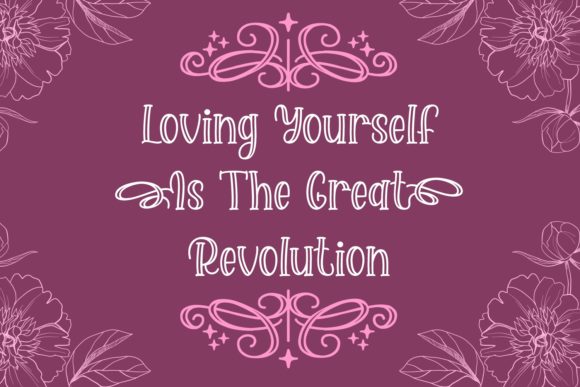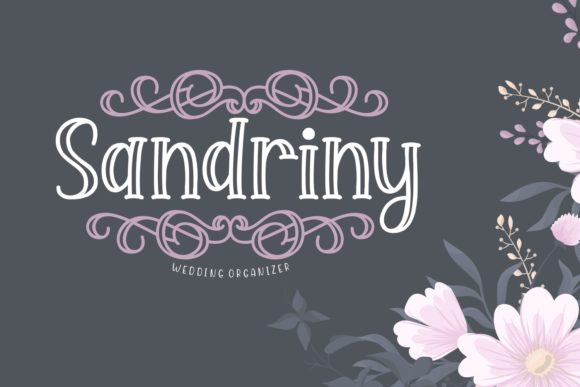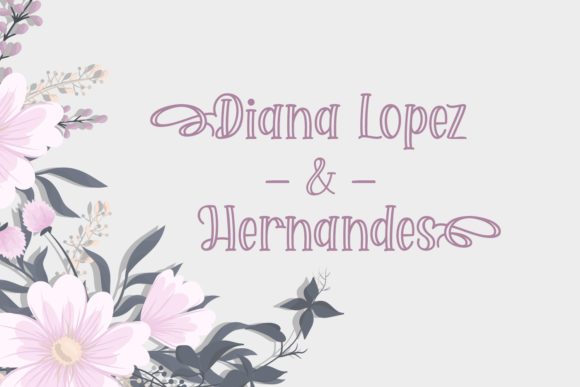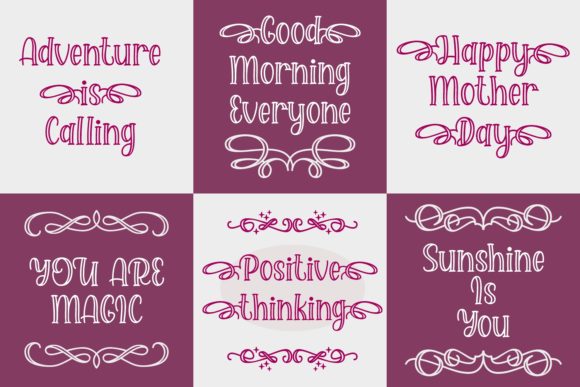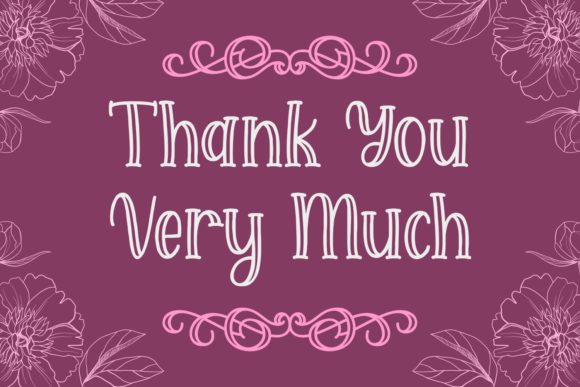
Asteriska Font: Elevate Your Designs with Elegance and Charm
In the world of typography, few fonts manage to strike a balance between charm and elegance as effortlessly as Asteriska Font. This beautiful, handwritten font has captured the hearts of designers and crafters alike, and for good reason. With its stunning appearance and versatile uses, Asteriska Font is the perfect addition to any design project that requires a touch of sophistication and whimsy.
The Characteristics of Asteriska Font
Asteriska Font is a true gem in the realm of typography. Its most notable features include a varying baseline, which gives it a delightfully organic and human feel. The smooth lines and gorgeous glyphs add to its charm, making it a font that exudes elegance and refinement. But what truly sets Asteriska apart is its stunning alternates, which allow designers to add a unique touch to their creations.
Practical Applications of Asteriska Font
So, where can you use Asteriska Font to elevate your designs? The possibilities are endless! Here are a few ideas to get you started:
- Wedding Invitations: Add a touch of romance and whimsy to your wedding invitations with Asteriska Font. Its elegant and charming appearance makes it perfect for formal and informal wedding stationery.
- Thank You Cards: Express your gratitude in style with Asteriska Font. Its beautiful, handwritten appearance makes it ideal for thank you cards, gift tags, and other expressions of appreciation.
- Quotes and Greeting Cards: Add a touch of sophistication and elegance to your quotes and greeting cards with Asteriska Font. Its smooth lines and gorgeous glyphs make it perfect for inspirational quotes, birthday cards, and more.
- Logos and Business Cards: Make a lasting impression with Asteriska Font. Its unique and charming appearance makes it ideal for logos, business cards, and other branding materials.
The Benefits of PUA Encoding
Asteriska Font is PUA (Private Use Area) encoded, which means that accessing its glyphs and swashes is a breeze. PUA encoding allows designers to access a font’s extended character set, including ligatures, alternates, and other special characters. This makes it easy to add a unique touch to your designs and create truly one-of-a-kind creations.
Why Designers and Crafters Love Asteriska Font
So, why have designers and crafters fallen in love with Asteriska Font? Here are just a few reasons:
- Versatility: Asteriska Font is incredibly versatile, making it perfect for a wide range of design projects.
- Elegance: Its elegant and charming appearance makes it ideal for designs that require a touch of sophistication.
- Easy to Use: With PUA encoding, accessing Asteriska Font’s glyphs and swashes is easy, making it simple to add a unique touch to your designs.
In conclusion, Asteriska Font is a true gem in the world of typography. Its elegant and charming appearance, combined with its versatility and ease of use, make it a must-have for designers and crafters. Whether you’re creating wedding invitations, logos, or greeting cards, Asteriska Font is the perfect choice. So why wait? Add a touch of elegance and charm to your designs with Asteriska Font today!